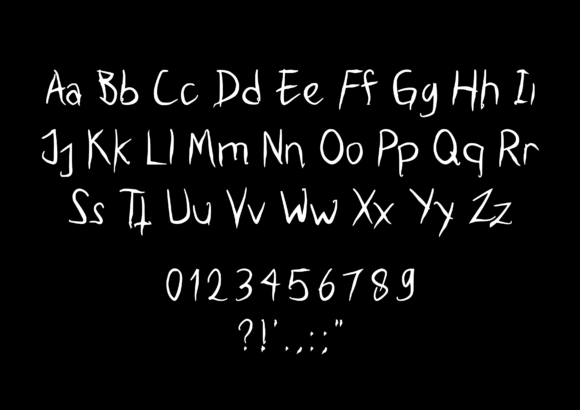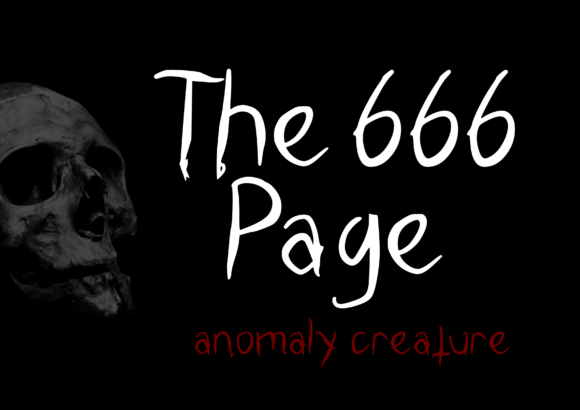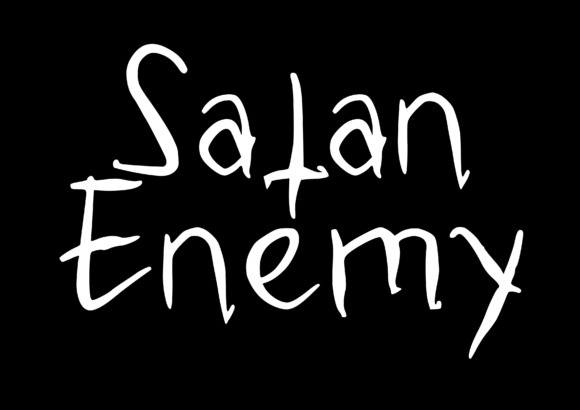
Introduction to Nightmare Entity Font
Nightmare Entity is a β€œcreepy” display font.
It is inspired by horror movies, and death metal music, which makes its visual appearance evil and spooky Nightmare Entity can be used for Halloween designs, branding, album covers, posters, or anything that needs a dramatic look.